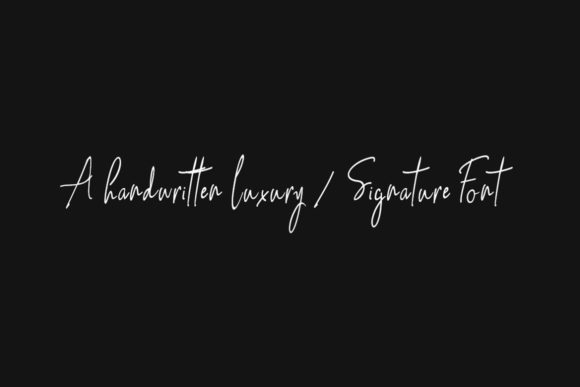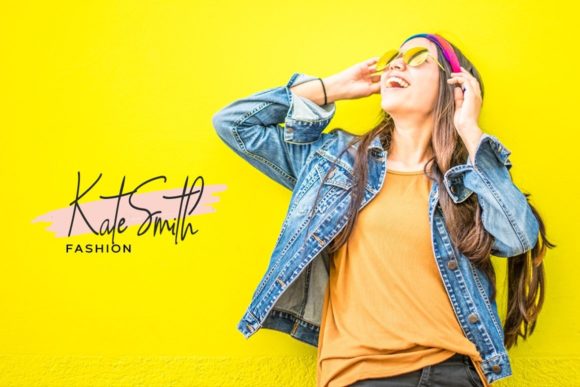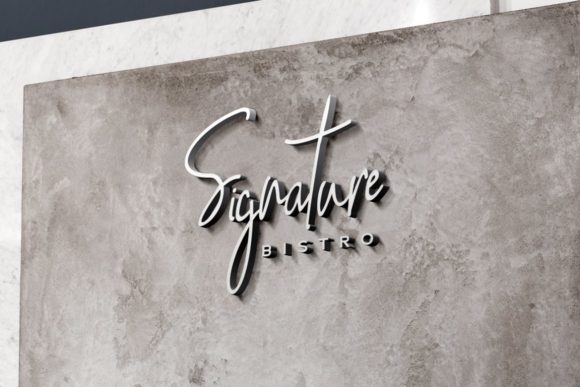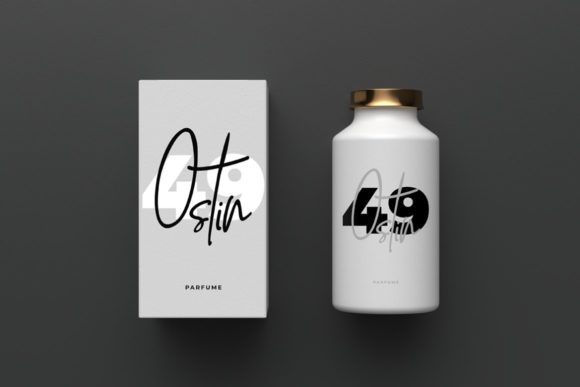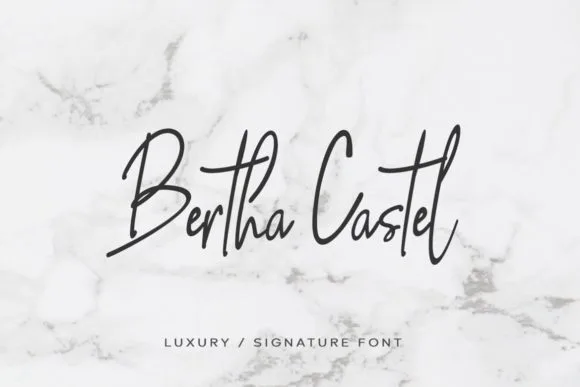
Bertha Castel Font
About Bertha Castel Font
Bertha Castel is a stunningly beautiful handwritten font. Expertly designed to make your creation look out of this world, this font will look gorgeous on a variety of ideas.